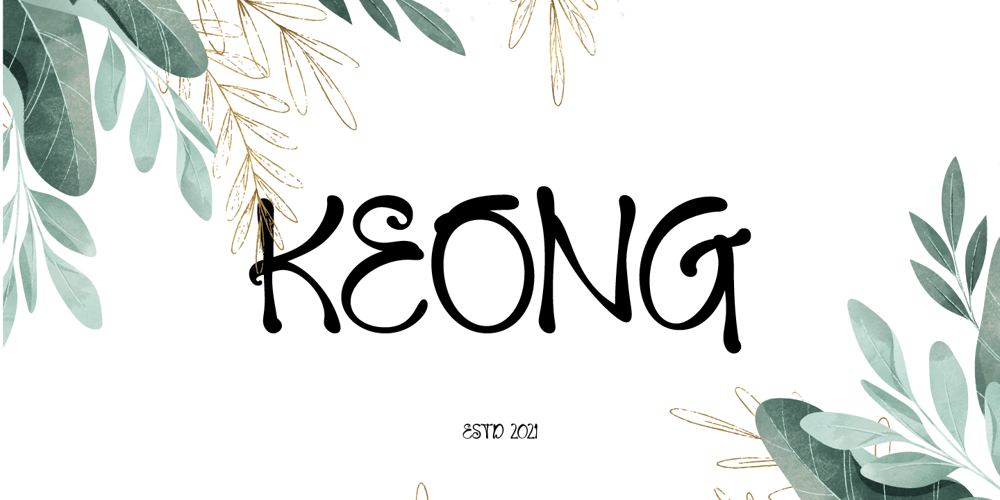
Keong Font Family was designed by Jarnawi Saja and published by Grontype. Keong contains 1 styles and family package options. Keong is a creative and attractive font, made using handwriting techniques, Unique and elegant. The writing can be used for various projects, such as flyer Project, or it can be used to print on clothes. just put it on top of your creative idea and make your project happen.Features : alternative and ligature character multilingual support unique style Thankyou for getting this fontRegard. Grontype